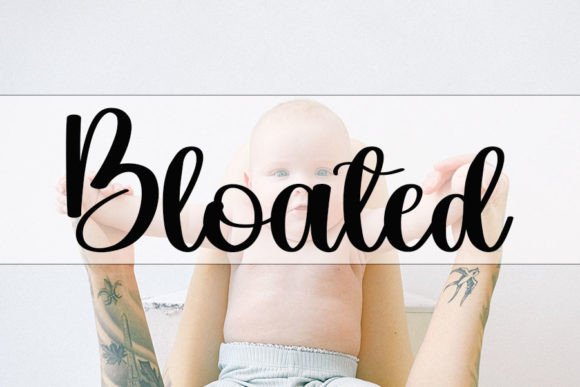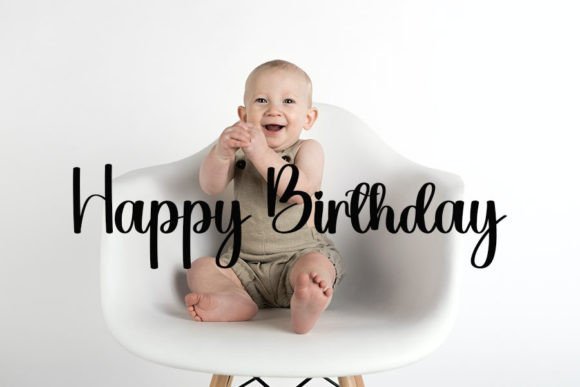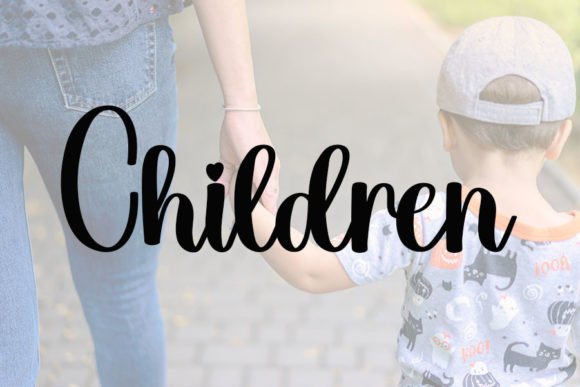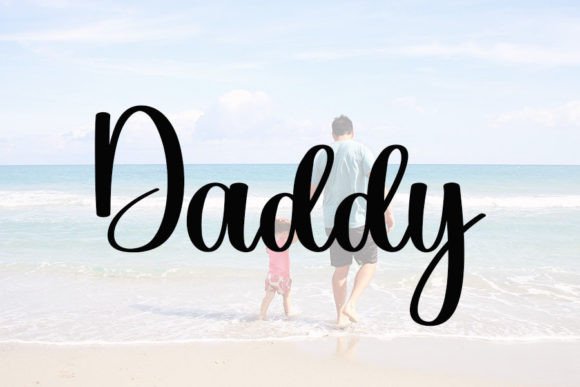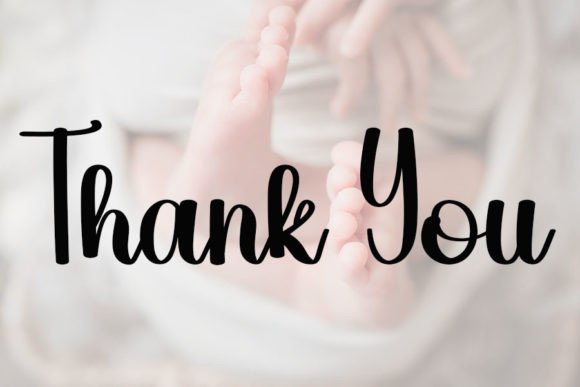
Babies Font: The Elegant and Timeless Choice for Your Design Projects
Are you looking for a font that exudes elegance and sophistication? Look no further than Babies Font, a beautiful handwritten font that is sure to capture your heart. With its incredibly distinct and timeless style, Babies Font is perfect for designers and crafters who want to add a touch of class to their projects.
What Makes Babies Font So Special?
Babies Font is a neat and beautiful handwritten font that is described by an elegant touch. Its unique and distinctive style sets it apart from other fonts, making it perfect for a wide range of design projects. Whether you’re creating a logo, a poster, or a social media graphic, Babies Font is sure to make your design stand out.
Key Features of Babies Font
- Elegant and Sophisticated: Babies Font has an elegant and sophisticated feel that is perfect for high-end designs.
- Handwritten Style: The font has a beautiful handwritten style that adds a personal touch to your designs.
- Distinctive and Timeless: Babies Font has a distinctive and timeless style that will never go out of fashion.
- Versatile: The font is versatile and can be used for a wide range of design projects, from logos and posters to social media graphics and more.
Why Designers and Crafters Love Babies Font
Designers and crafters love Babies Font for its unique and elegant style. The font is perfect for creating beautiful and sophisticated designs that are sure to impress. Here are just a few reasons why designers and crafters love Babies Font:
- Easy to Read: Babies Font is easy to read, making it perfect for designs that require a lot of text.
- Highly Versatile: The font is highly versatile and can be used for a wide range of design projects.
- Unique Style: Babies Font has a unique style that sets it apart from other fonts.
- Timeless Appeal: The font has a timeless appeal that will never go out of fashion.
How to Use Babies Font in Your Design Projects
Using Babies Font in your design projects is easy. Here are a few tips to get you started:
- Pair it with Other Fonts: Babies Font pairs well with other fonts, making it easy to create beautiful and sophisticated designs.
- Use it for Headings and Titles: The font is perfect for headings and titles, adding a touch of elegance and sophistication to your designs.
- Experiment with Different Colors: Babies Font looks great in a variety of colors, so don’t be afraid to experiment and find the perfect color for your design.
In conclusion, Babies Font is a beautiful and elegant handwritten font that is perfect for designers and crafters who want to add a touch of class to their projects. With its incredibly distinct and timeless style, Babies Font is sure to make your designs stand out. Whether you’re creating a logo, a poster, or a social media graphic, Babies Font is the perfect choice.